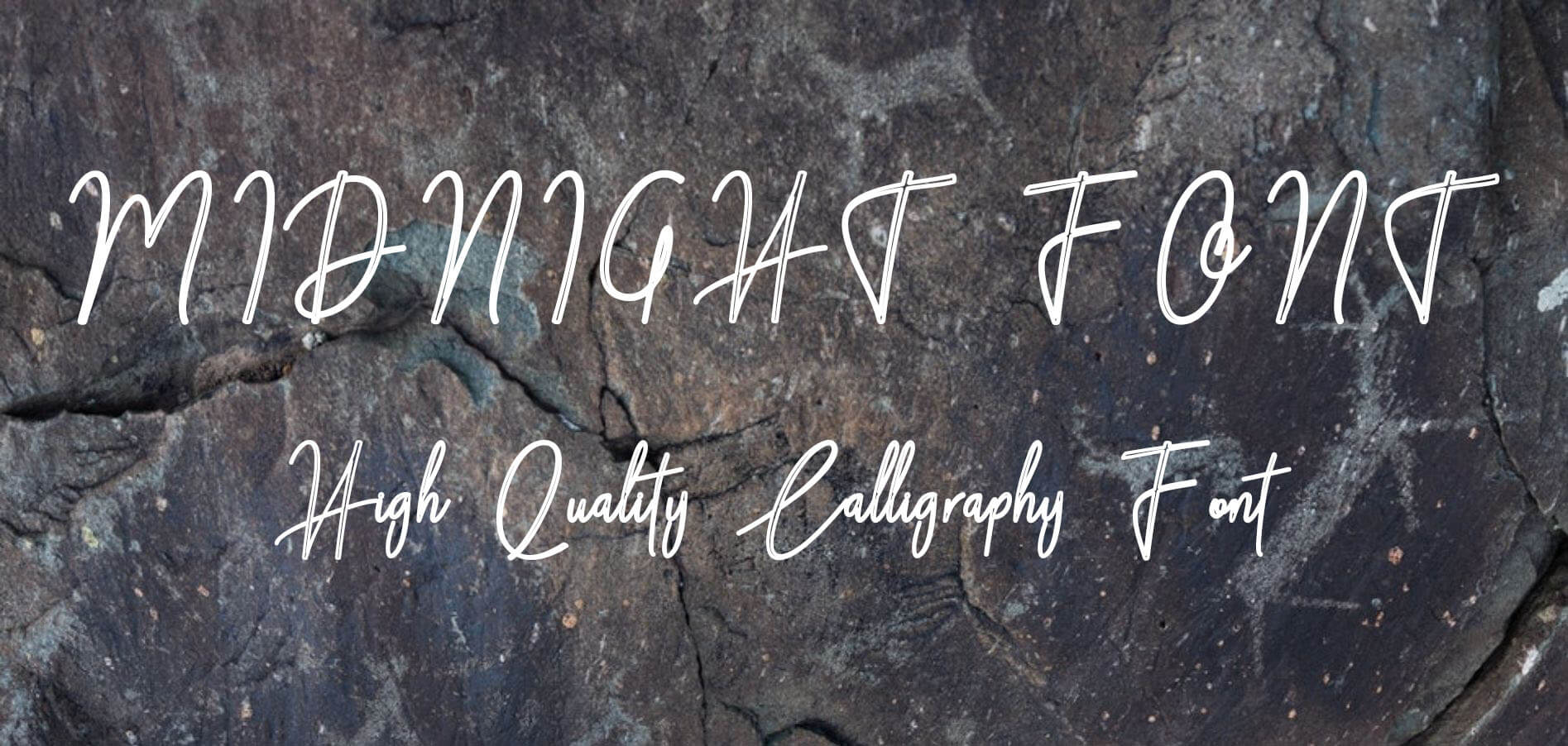
Midnight is an exceptional Calligraphy typeface family that was designed by KA designs. This typeface comes in all uppercase, lowercase, and in some other special characters, and you can make such astonishing designs with the use of these amazing characters.
Midnight Font
NameMidnight Font
DesignerKA designs
StyleCalligraphy